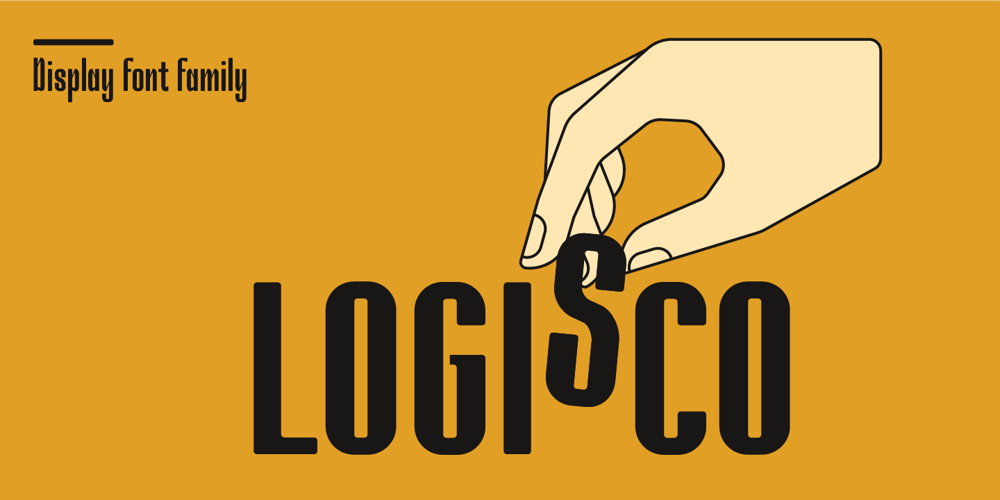
Logisco
Logisco font
Logisco Font Family was designed by Agne Matulionyte and published by Ideabuk. Logisco contains 6 styles and family package options. Introducing Logisco – a sleek and versatile display font family that combines modern geometry with a retro-cool vibe. This six-font collection boasts soft, rounded corners that add a dash of playfulness to any project. Logisco Light, Regular, and Bold offer a range of weights to fit any typographic need, while the Stencil variations add a unique edge to your designs. Whether you’re creating sleek logos or funky posters, Logisco has you covered with its stylish and versatile letterforms.